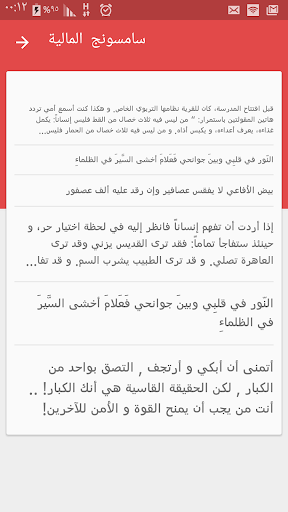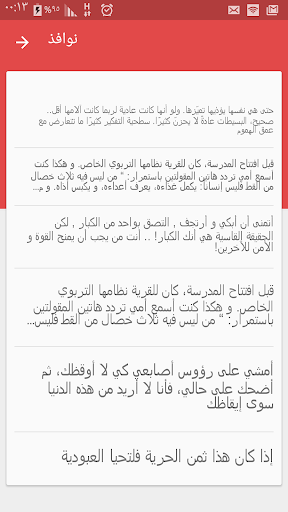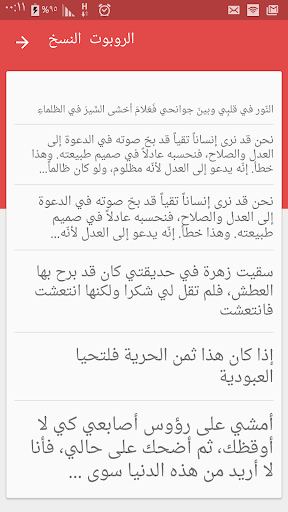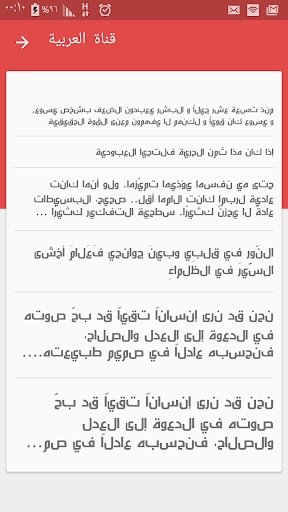
Cute Arabic Fonts for FlipFont
Description of Cute Arabic Fonts for FlipFont
This is a fantastic set of fonts for your Samsung Galaxy phones. Change the look and feel of your phone with a wide range of elegant Arabic fonts within the app.